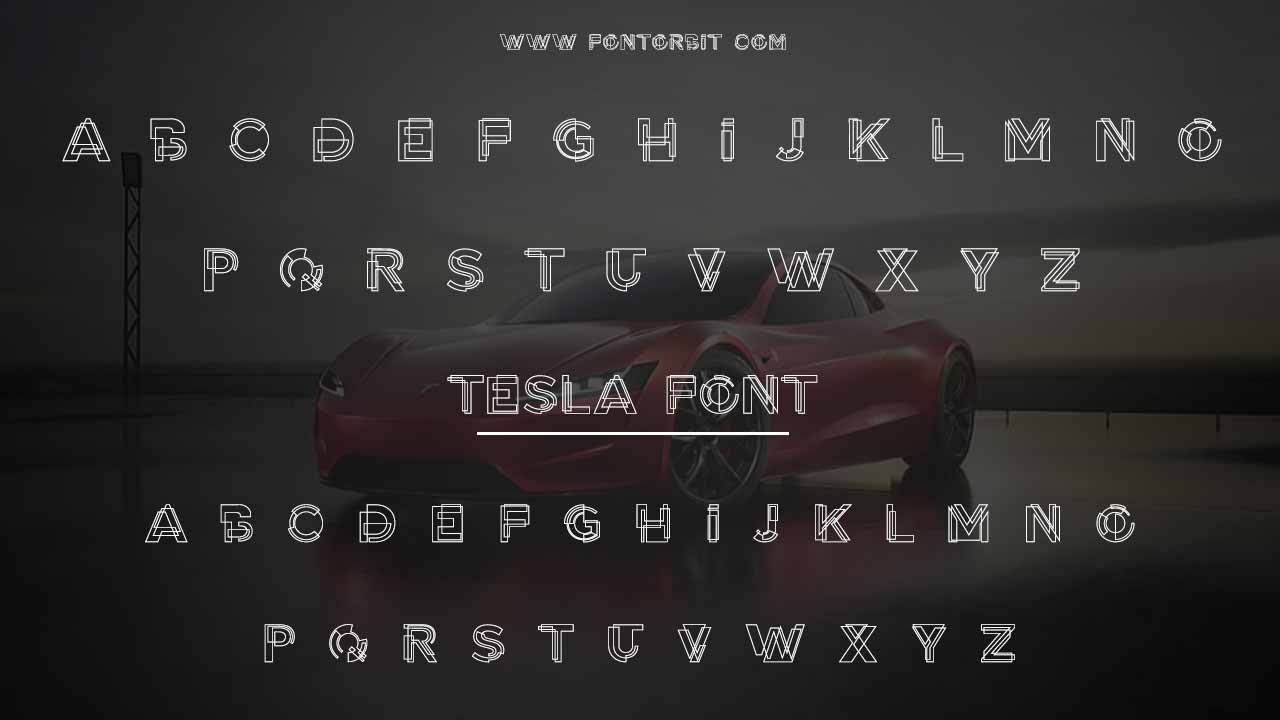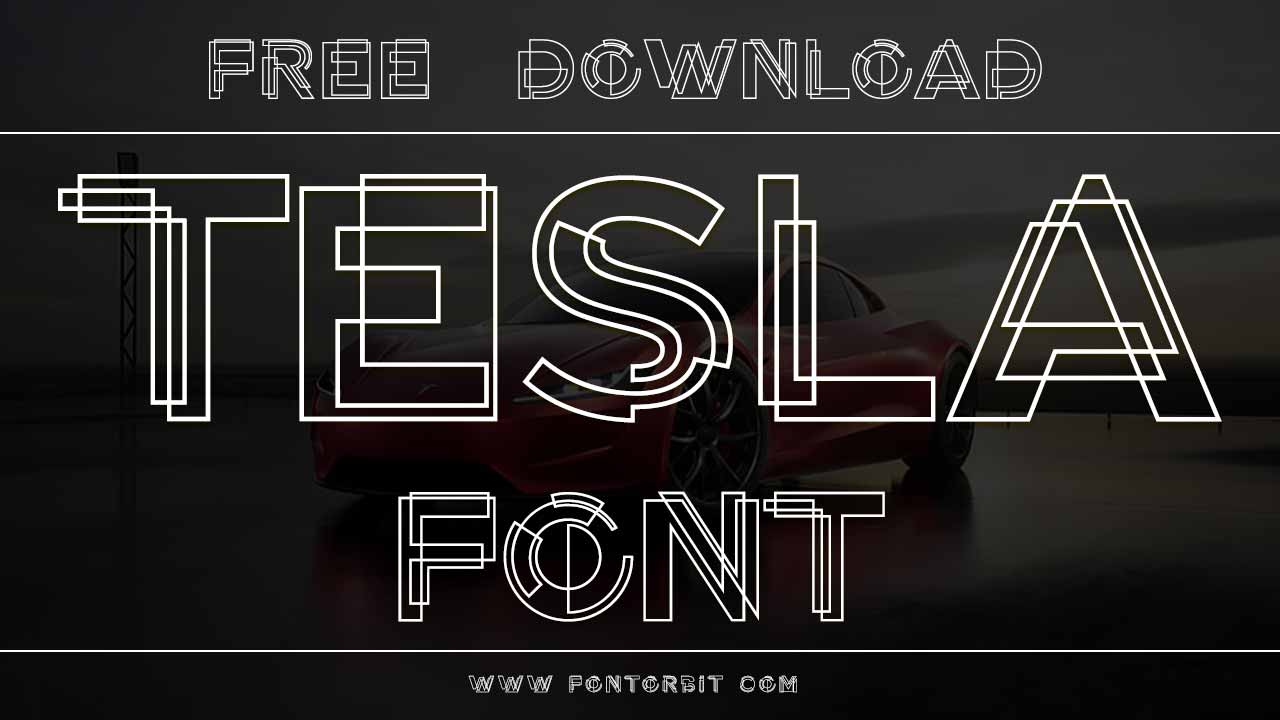
The Tesla font, created by Dies, is a stylish display typeface rapidly gaining popularity for modern branding, especially for companies in the tech, automotive, and innovation sectors. Inspired by the cutting-edge spirit of Tesla Inc. and Elon Musk, this font brings a sleek, futuristic look to any design project, whether you’re working on a logo, website, or promotional material.
This article explores how to incorporate the Tesla font into your branding strategy, including practical tips for using it in logos, websites, and printed materials.
Why Use The Tesla Font For Branding?
The Tesla font uniquely blends modern, bold elements that align perfectly with Tesla’s futuristic ethos. It’s an ideal choice for businesses looking to convey innovation, creativity, and technological advancement. Whether creating a new logo, revamping your website, or designing promotional materials, this modern font will make your brand stand out.
Tesla Font Family Overview
The Tesla font includes a range of weights and styles that work well in different branding scenarios. Here’s a quick breakdown of the available styles:
- Tesla Regular
Each style offers a distinct vibe but maintains the sleek, cutting-edge feel that Tesla is known for.
How To Incorporate Tesla Font Into Your Branding
1. Logo Design
A logo is often the first thing customers see, so it needs to leave a lasting impression. The Tesla font, thanks to its futuristic design, is perfect for this. Whether you’re going for a script font effect or a more vintage font feel, Tesla’s unique style allows for customization.
2. Digital Media And Websites
Incorporating the Tesla font on websites is an excellent way to give your digital content a modern edge. Use it for instant brand recognition for headings, titles, and navigation bars. It pairs well with typewriter and military fonts for more unique branding.
- Headings and Titles: Use Tesla Bold to make a statement.
- Navigation & Menus: Tesla Regular works great for easy readability.
3. Printed Materials
The Tesla font adds a professional and futuristic touch when designing printed materials like brochures, business cards, or flyers. The clean lines make it perfect for all kinds of printed content, from business stationery to marketing materials.
- Business Cards: Tesla Regular for a sleek, professional appearance.
- Brochures and Flyers: Tesla Italic for adding an artistic touch.
Using Tesla Font For Different Design Themes
While the Tesla font has a modern, tech-inspired look, you can experiment with other font styles to complement it. Consider pairing it with retro fonts or vintage fonts for an interesting contrast. If you aim for a more formal design, pair it with calligraphy or script fonts.
Best Practices For Using The Tesla Font In Branding
- Test Font Size: Make sure the font size is readable on all devices and printed materials.
- Play with Colors: The Tesla font looks great in bold, contrasting colors but can also be paired with lighter shades for a more subtle effect.
- Use Special Characters: Experiment with special characters from the font’s character map to add creative flair to your designs.
The Tesla font offers a modern, sleek, and versatile design perfect for various branding and creative projects. With its multiple formats, ease of customization, and compatibility with other fonts, it’s an excellent choice for businesses and designers seeking a distinctive, high-quality font. By incorporating it into your brand design, you can achieve a professional, eye-catching aesthetic that resonates with your audience.
7.What Are The Best Ways To Incorporate The Tesla Font Into Printed Materials?
The Tesla font works beautifully for printed materials, especially for promotional materials, business cards, and flyers. Its bold and modern look ensures that your message stands out, whether it’s a Tesla logo, product names, or slogans.